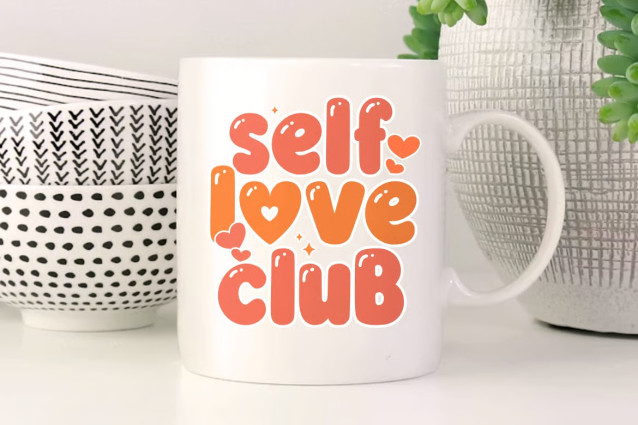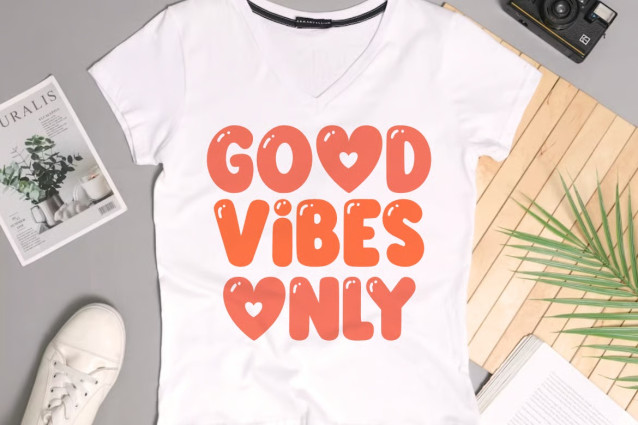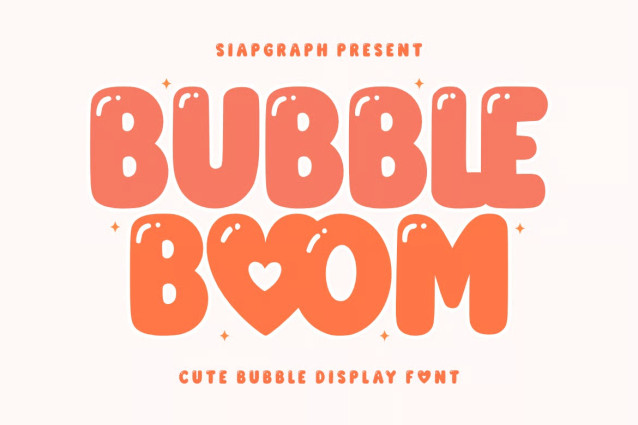
Bubble Boom Font
Bubble Boom is a cute bubble display font that radiates energy, playfulness, and pure joy. Featuring chunky, rounded letterforms accented with sweet glossy highlights and charming heart details, this typeface is specifically designed to bring a fun and optimistic vibe to any creative project.
Its clean and substantial construction is optimized for the crafting community, ensuring a seamless and frustration-free experience for vinyl cutting, sublimation, and high-quality digital printing.